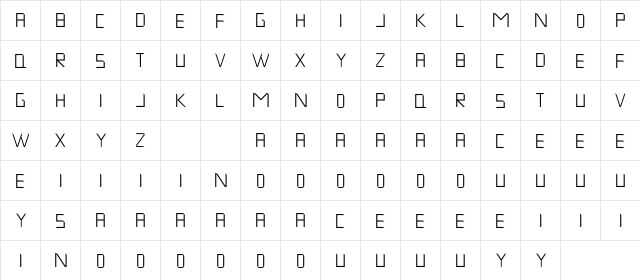
Musk Night Regular
| Designer | Atasi Studio |
Design Context for Musk Night Typeface
Musk Night offers clean, dependable letterforms without strong stylistic allegiance, making it a practical choice for designers who need flexibility.